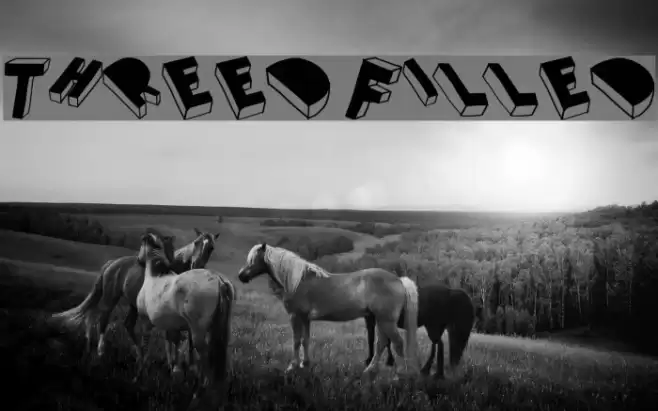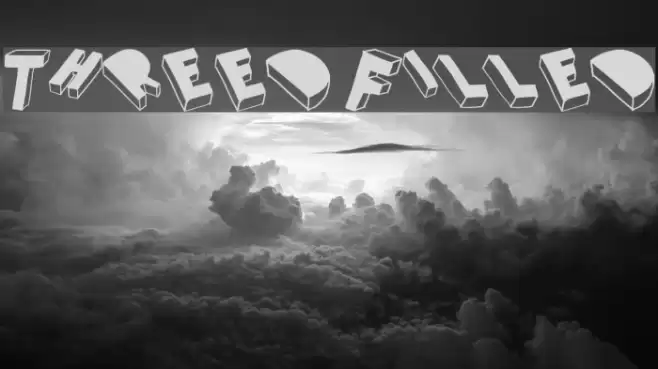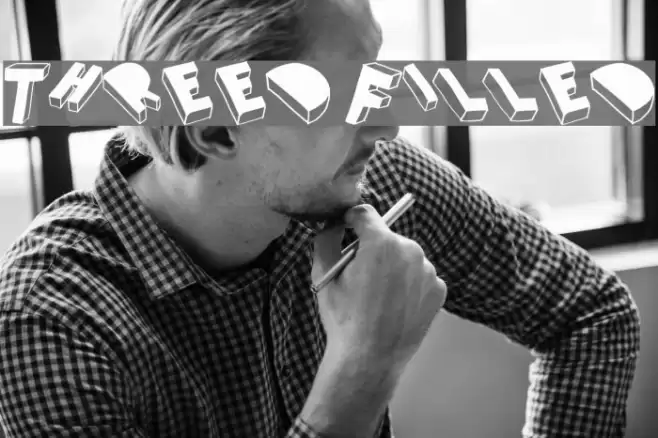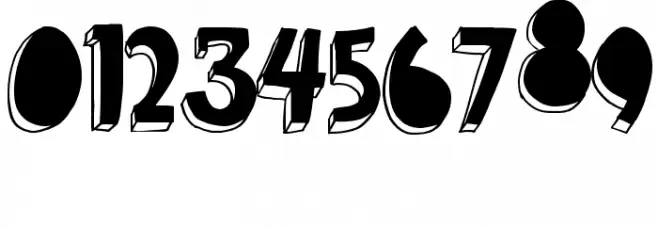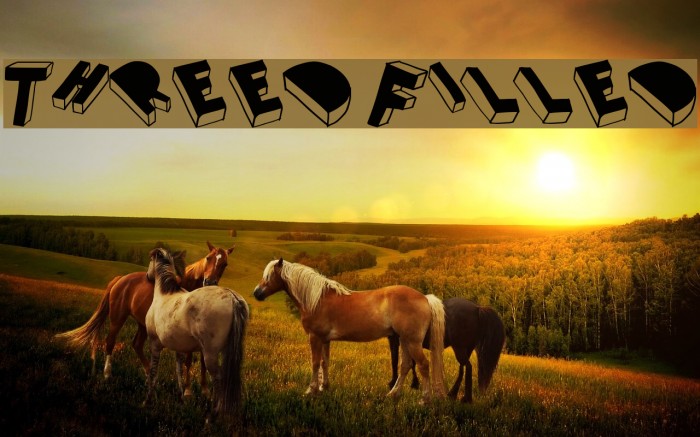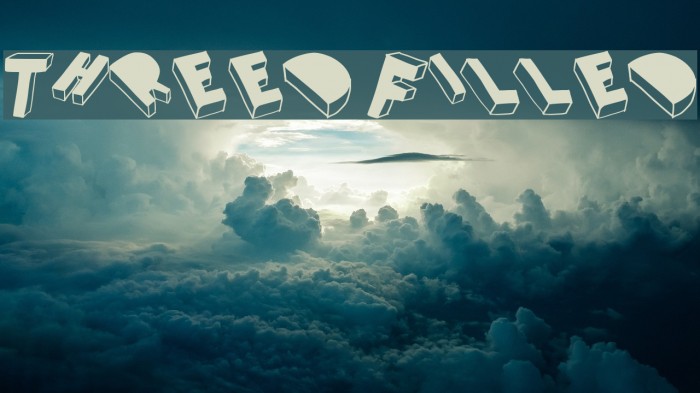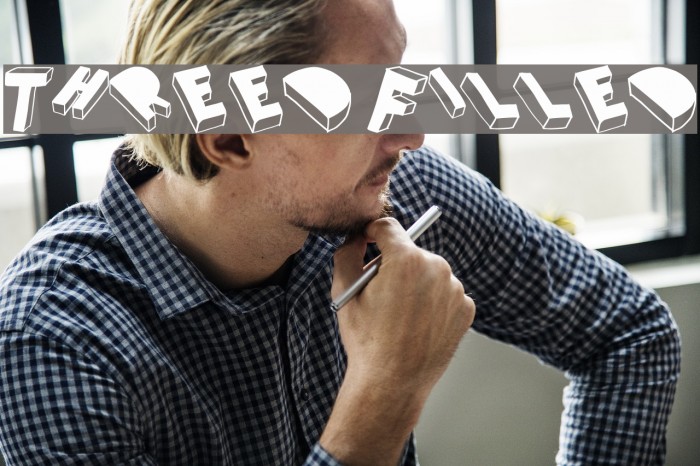
threed filled Font
threed filled Description
This font features a bold, three-dimensional design with a filled appearance, creating a striking and impactful visual effect. The letters are crafted with a shadowed, block-like style that gives them depth and a sense of movement. The uppercase and lowercase letters maintain a consistent aesthetic, with sharp angles and clean lines that enhance their modern appeal. The numbers follow the same design principles, ensuring uniformity across all characters. This font's unique style makes it ideal for projects that require a bold statement or a creative touch.
A bold, three-dimensional font with a filled, shadowed design for impactful visuals from Cartoon fonts.
- Proposed Projects: Ideal for posters, headlines, logos, and any design needing a bold, eye-catching element.